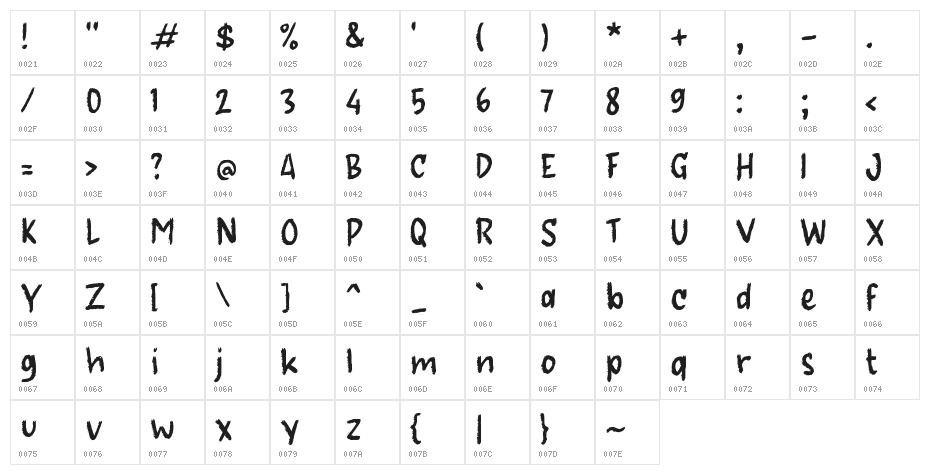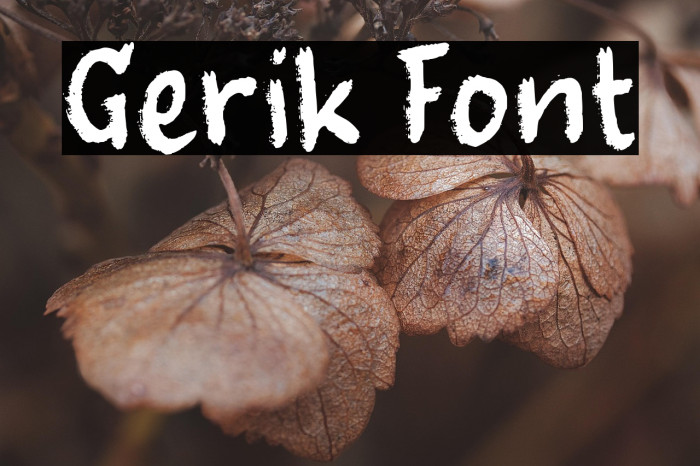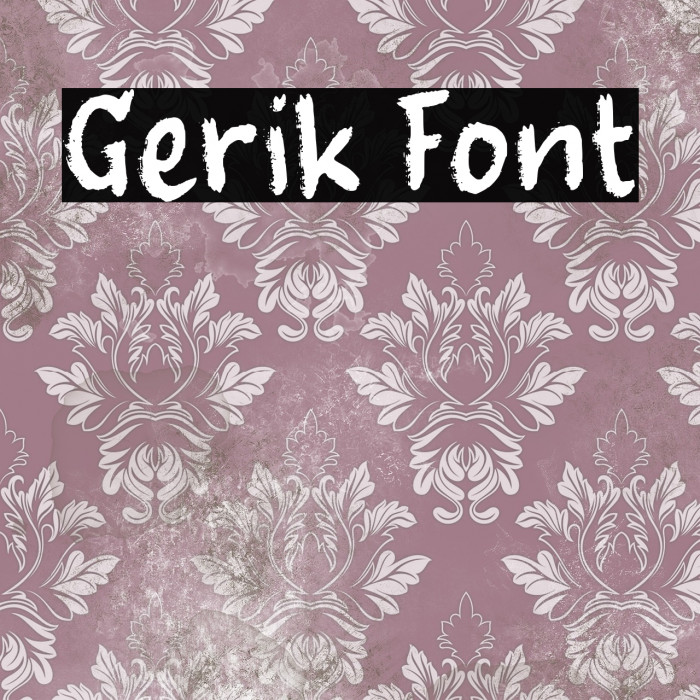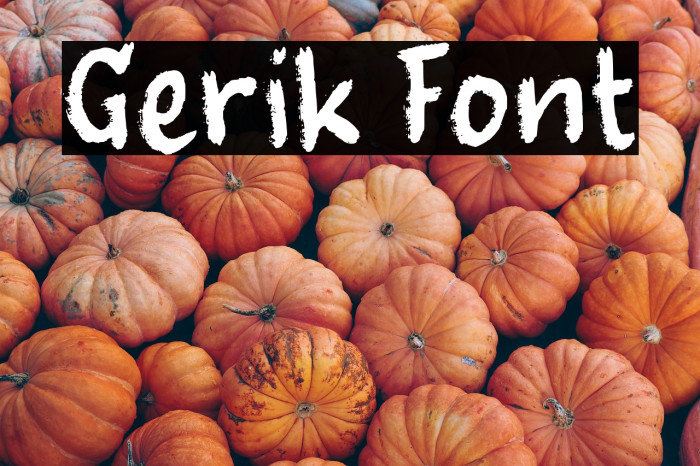
Gerik Font
Gerik Description
This font features a bold and expressive handwritten style, characterized by its rough, textured strokes that give it a dynamic and energetic appearance. The letters are slightly irregular, adding a personal and informal touch. The uppercase and lowercase letters maintain a consistent style, with rounded edges and a playful feel. Numbers and special characters are crafted with the same attention to detail, ensuring a cohesive look across all elements. This font is ideal for projects that require a personal, artistic touch, such as greeting cards, posters, and creative branding.
| Use Case | Headlines, Logos, Creative projects |
| Proposed Projects | Ideal for greeting cards, posters, artistic branding, and creative projects requiring a personal touch. |